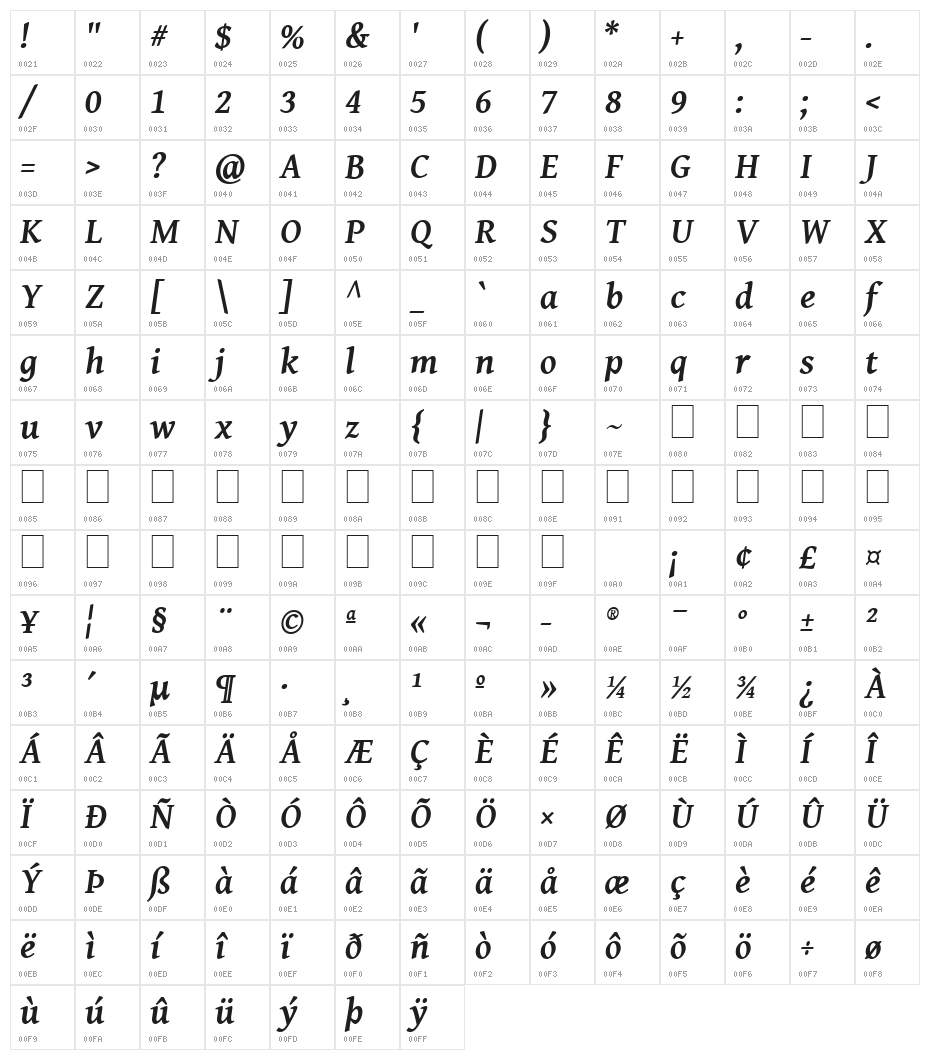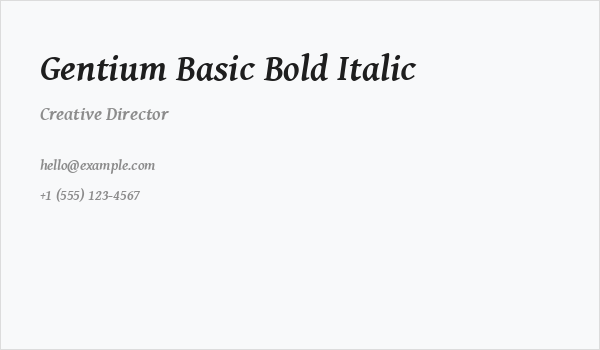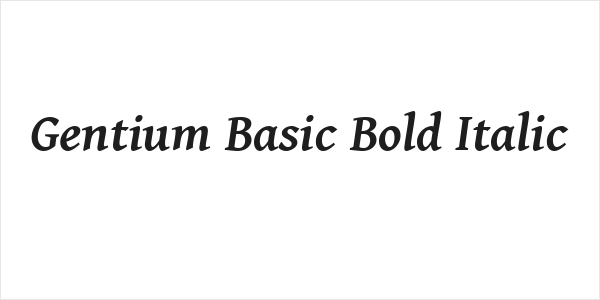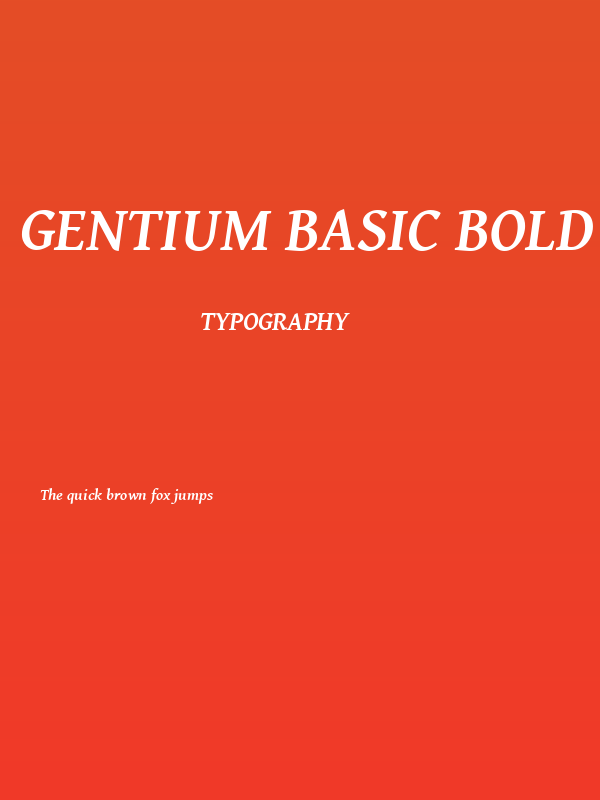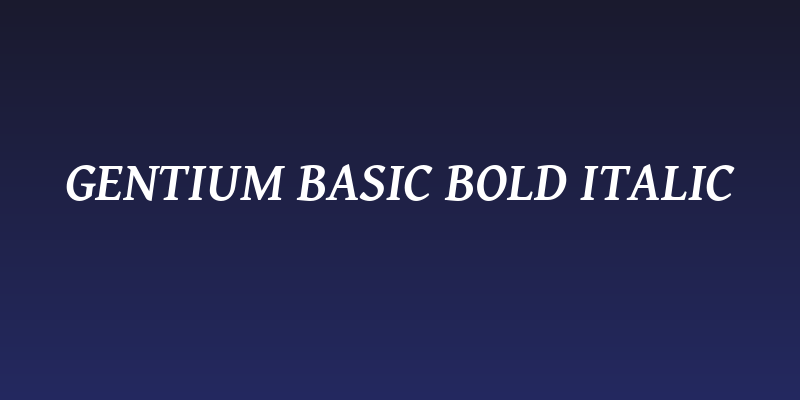
Gentium Basic Bold Italic Font
Gentium Basic Bold Italic Description
This font features a classic serif style with a bold and italicized appearance, giving it a strong yet elegant look. The characters are well-defined with moderate contrast between thick and thin strokes, enhancing readability while maintaining a sophisticated aesthetic. The italic slant adds a dynamic feel, making it suitable for both formal and creative applications. The uppercase letters are stately and commanding, while the lowercase letters offer a smooth, flowing script. Numerals and special characters are consistent with the overall design, ensuring versatility across various uses.
| Proposed Projects | Ideal for book covers, editorial design, formal invitations, and branding materials. |